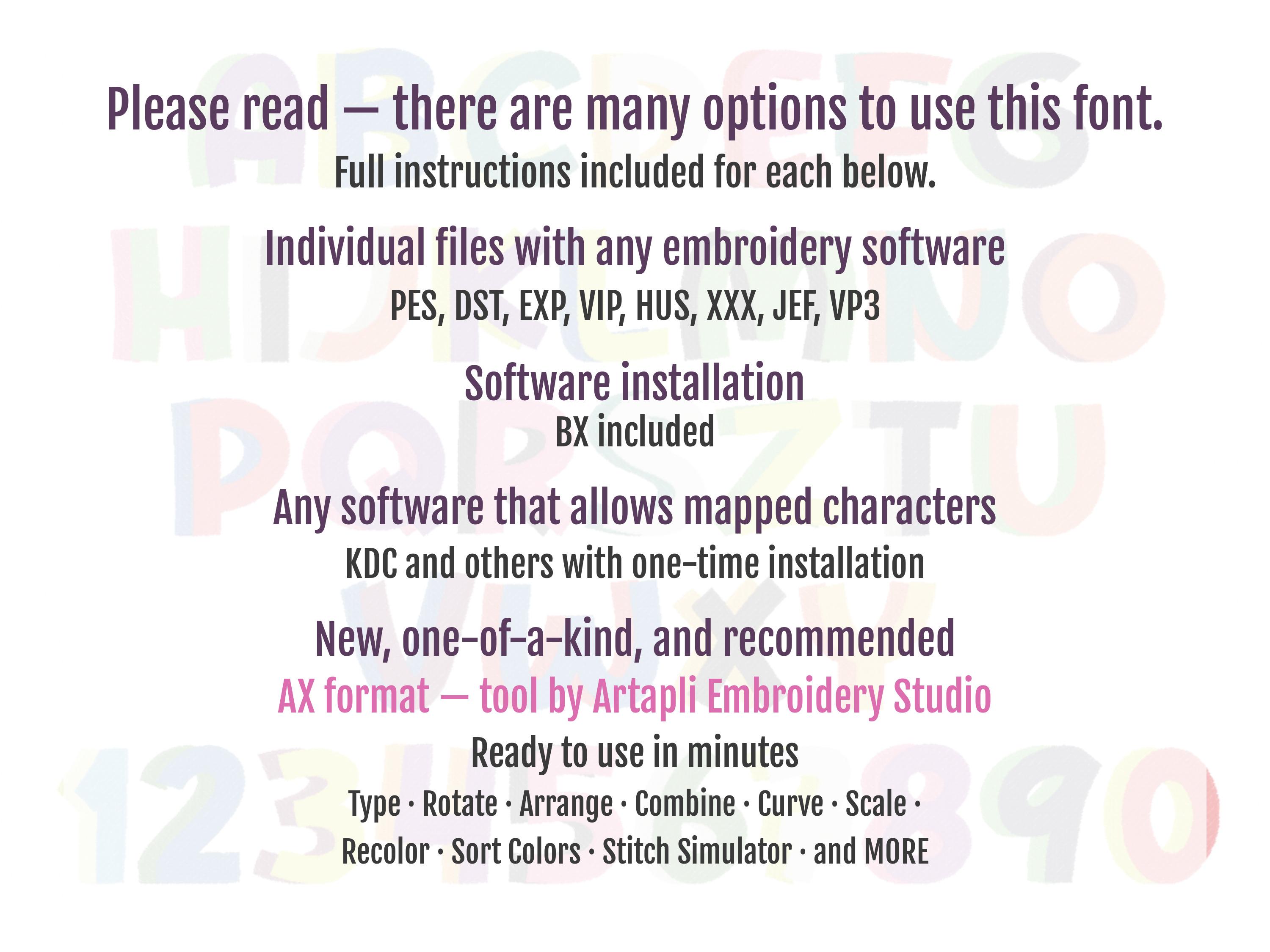
Shadow font shadowed kids name monogram colorful embroidery font Shadow Font fill stitch machine embroidery designs size 1, 1.5, 2, 2.5in
Whole alphabet A-Z, uppercase and lowercase letters
numbers 0-9